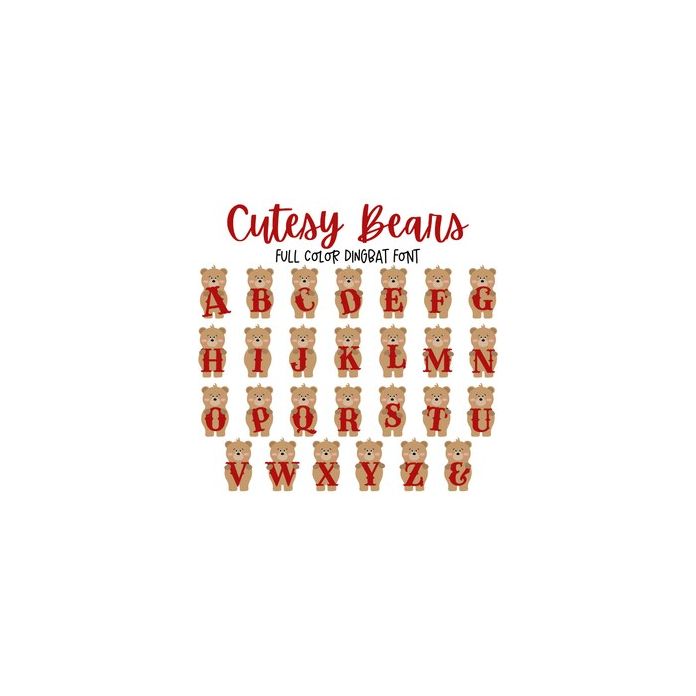
Introducing our delightful Full-Color Alphabet Font with an adorable twist! Each letter in this playful font is accompanied by a cute bear holding it, making learning and crafting a truly enjoyable experience for kids and bear enthusiasts alike. Perfect for creating educational materials, children's books, nursery decor, and more, our colorful bear-themed alphabet font adds a touch of charm to any project. Get ready to spell, craft, and play with this whimsical bear alphabet that's as fun as it is educational. Bring smiles and creativity to your designs with our unique and lovable bear character font.